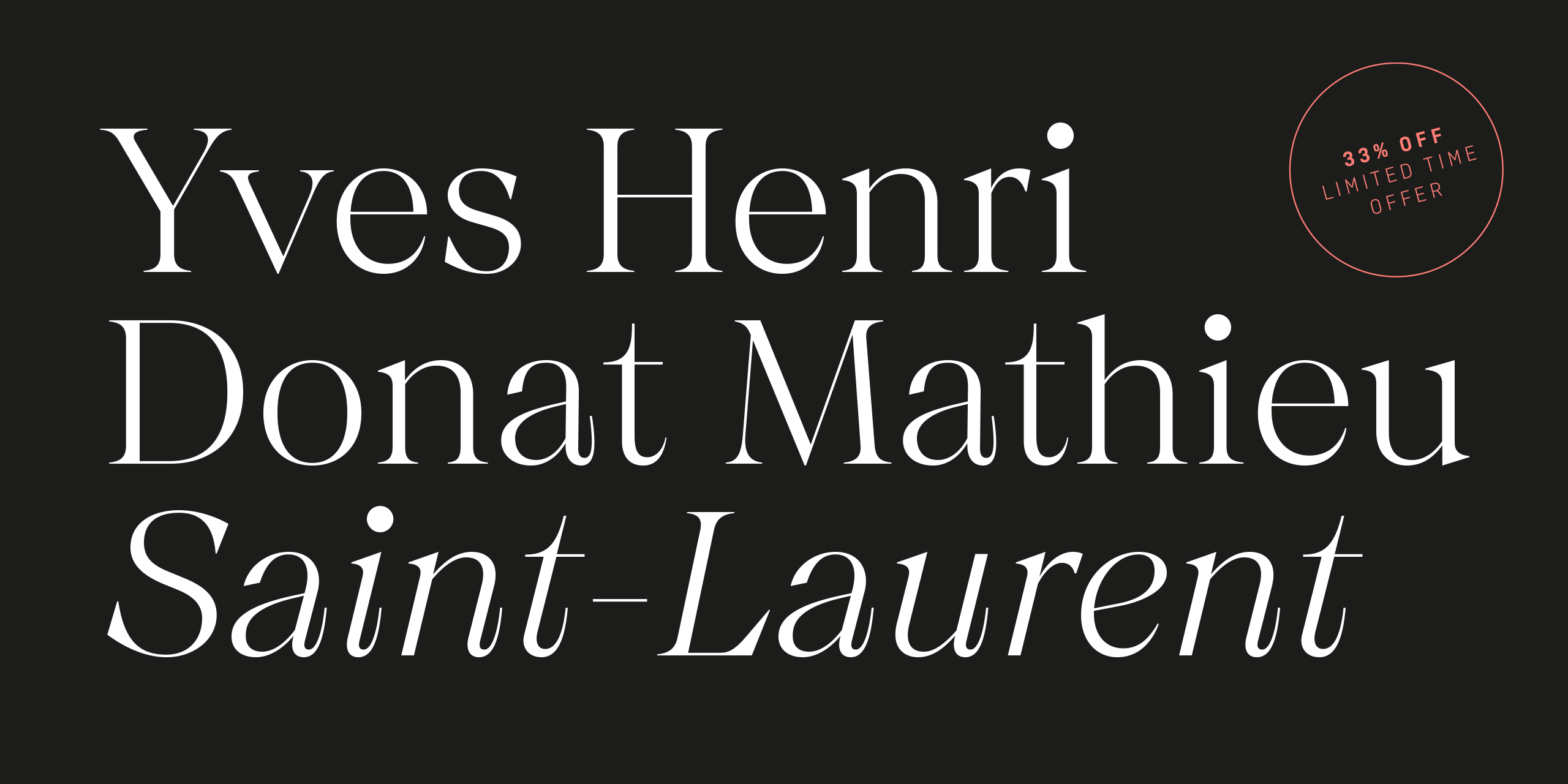
Inspired by an art technique, Chiaroscura is a display typeface that conveys elegance and finesse. It has high contrast, sharp terminals and compact vertical proportions that makes it ideal for headlines. Its classy personality directly relates it to the world of art, fashion, music or literature among others. Chiaroscura is suitable for any piece of communication that requires some refined and sophisticated typeface.
Chiaroscura